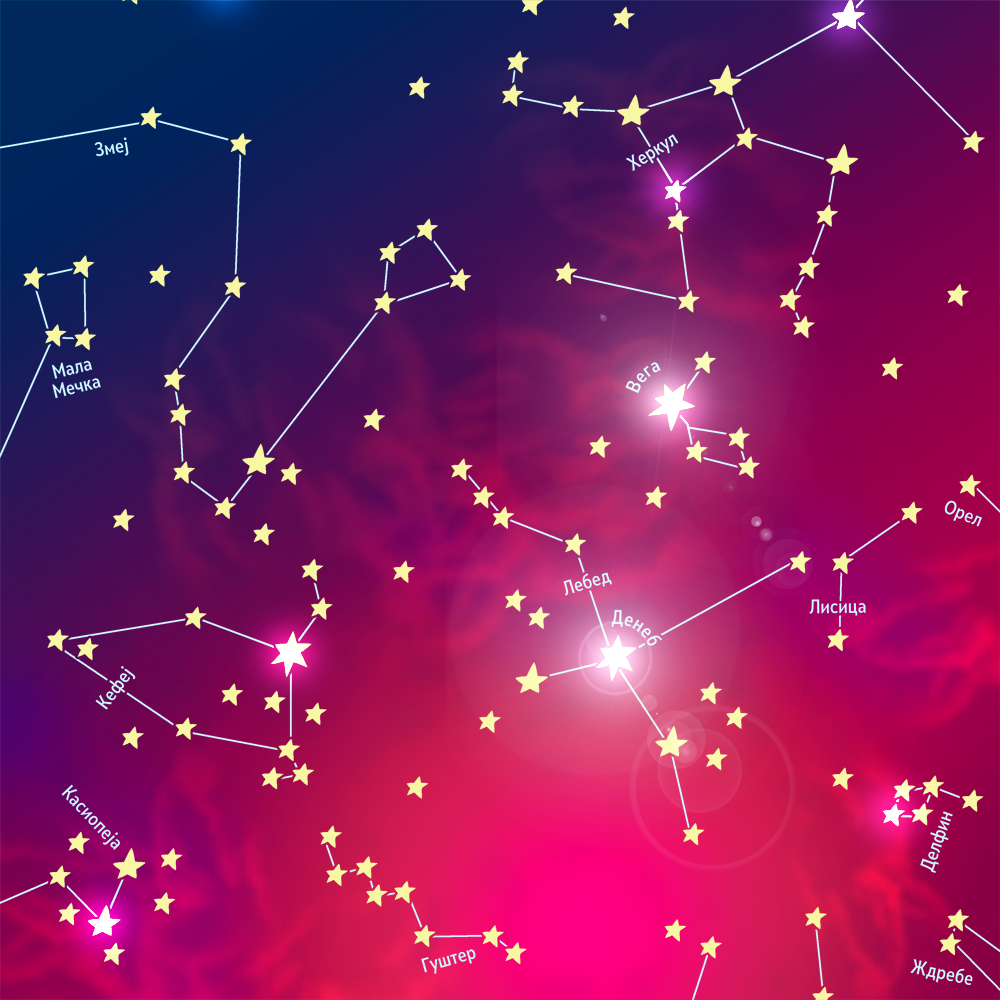
in Dingbats FontsConstellations Font 80 Views View Gallery 1 image About Constellations FontAstronomy is a fun, constellation based dingbat set. Perfect for adding a cosmic flair to your designs and projects. Download this fun dingbat set, Astronomy, today. DOWNLOAD NOW Constellations Font Written by canyonadmin Leave a Reply Cancel replyYour email address will not be published. Required fields are marked *Comment *Name * Email * Website Save my name, email, and website in this browser for the next time I comment.